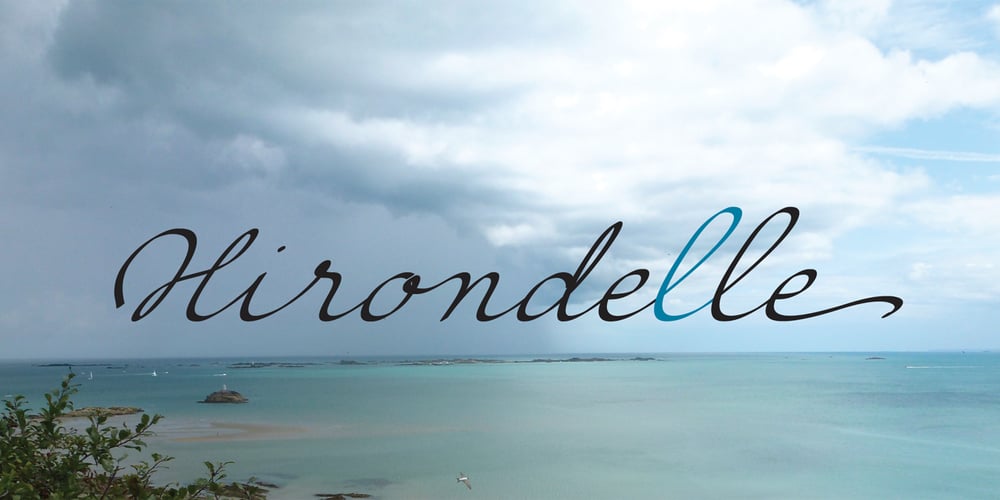
Hirondelle
Hirondelle font
Hirondelle Font Family was designed by Jean Boyault and published by JBFoundry. Hirondelle contains 4 styles and family package options. With over 900 characters and with the contextual alternates, Hirondelle offers you a perfectly connected writing. By activating swashes, your texts will take a more remarkable expression. With its four weights, you will have a wide choice for your invitations, advertisements, packaging …